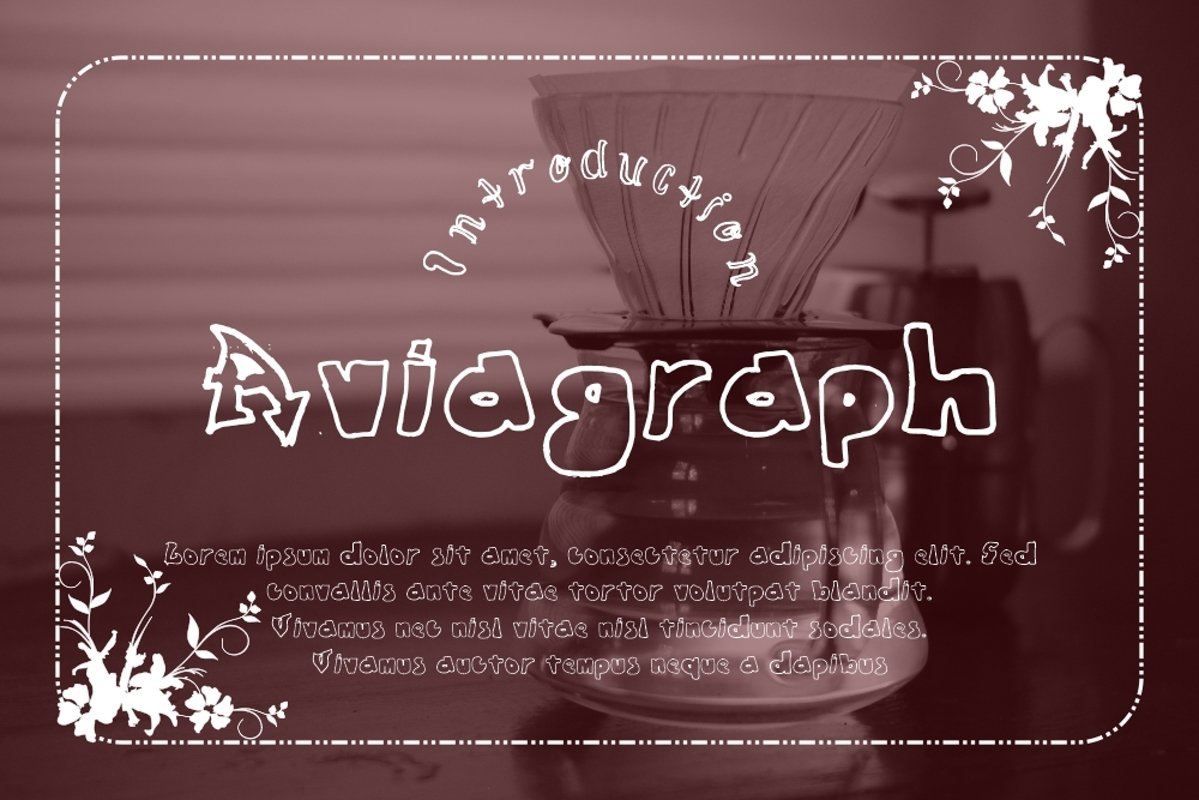
Aviagraph
Aviagraph Typeface is a vintage display type. It suitable for any vintage type needs and more Happy creating.Very suitable for you who do exploration